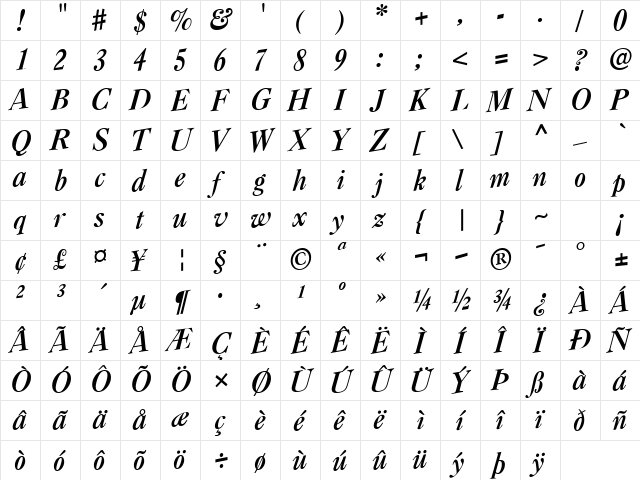
GreenWich4 Regular
Design Context for GreenWich4 Typeface
GreenWich4 takes a measured approach to typography — its balanced proportions and neutral character make it a reliable workhorse for both digital and print work.